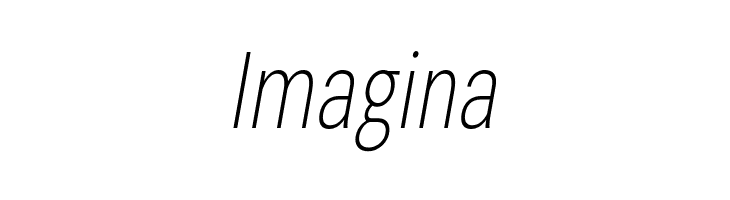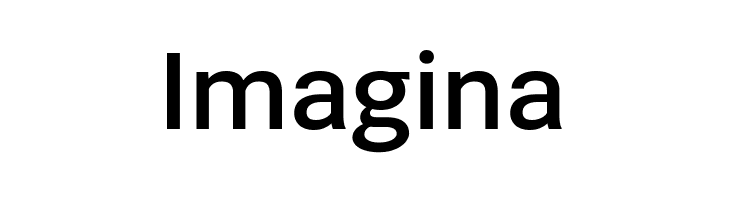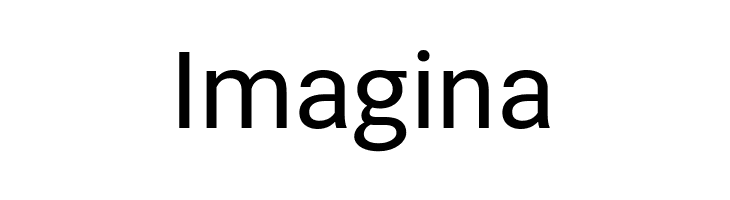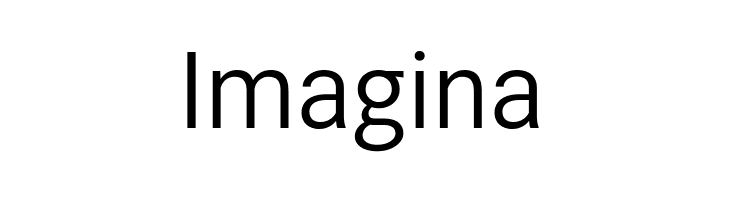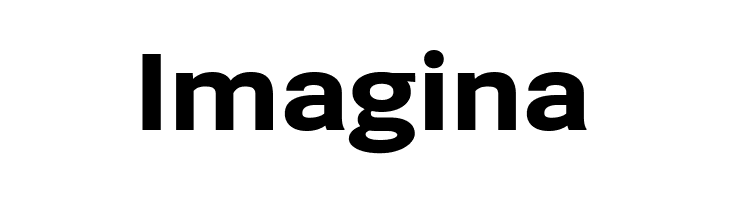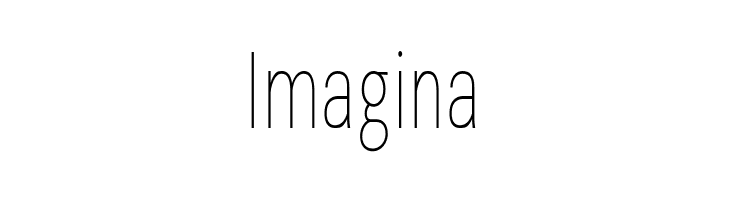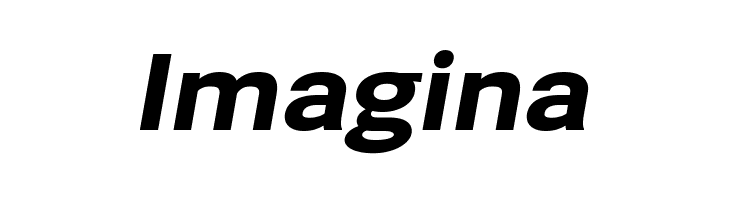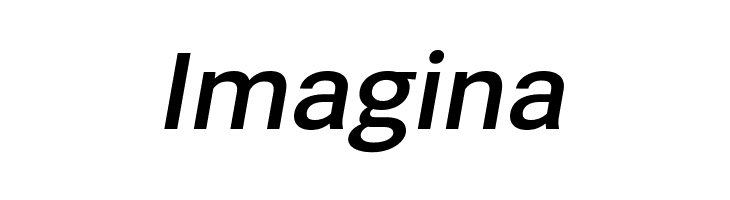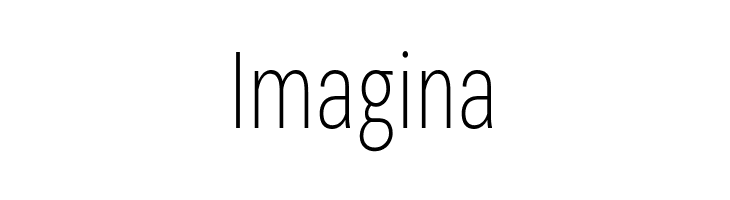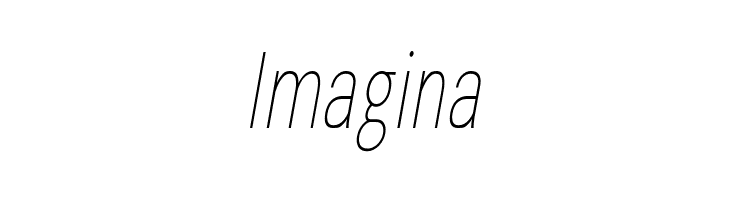
A modern, clean sans-serif font with balanced spacing and consistent stroke width.
A bold, modern sans-serif typeface with clean lines and strong presence.
A bold, modern sans-serif font with clean lines and balanced spacing.
A bold, italic sans-serif font with a modern and sleek design.
A bold, italic sans-serif font with a modern and dynamic style.
A modern, extra light sans-serif font with clean lines and uniform spacing.
A sleek, modern sans-serif font with an extra light and italicized style.
A clean, modern sans-serif typeface with balanced proportions and high legibility.
A modern, medium-weight italic sans-serif font with a clean and dynamic style.
A modern, semi-bold sans-serif font with clean lines and rounded edges.
A modern, semi-bold, italic sans-serif font with clean lines and a dynamic style.
A thin, modern sans-serif font with a clean and elegant style.